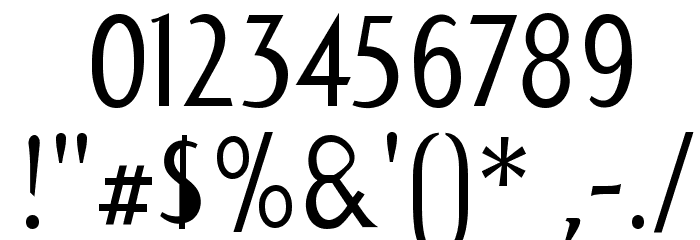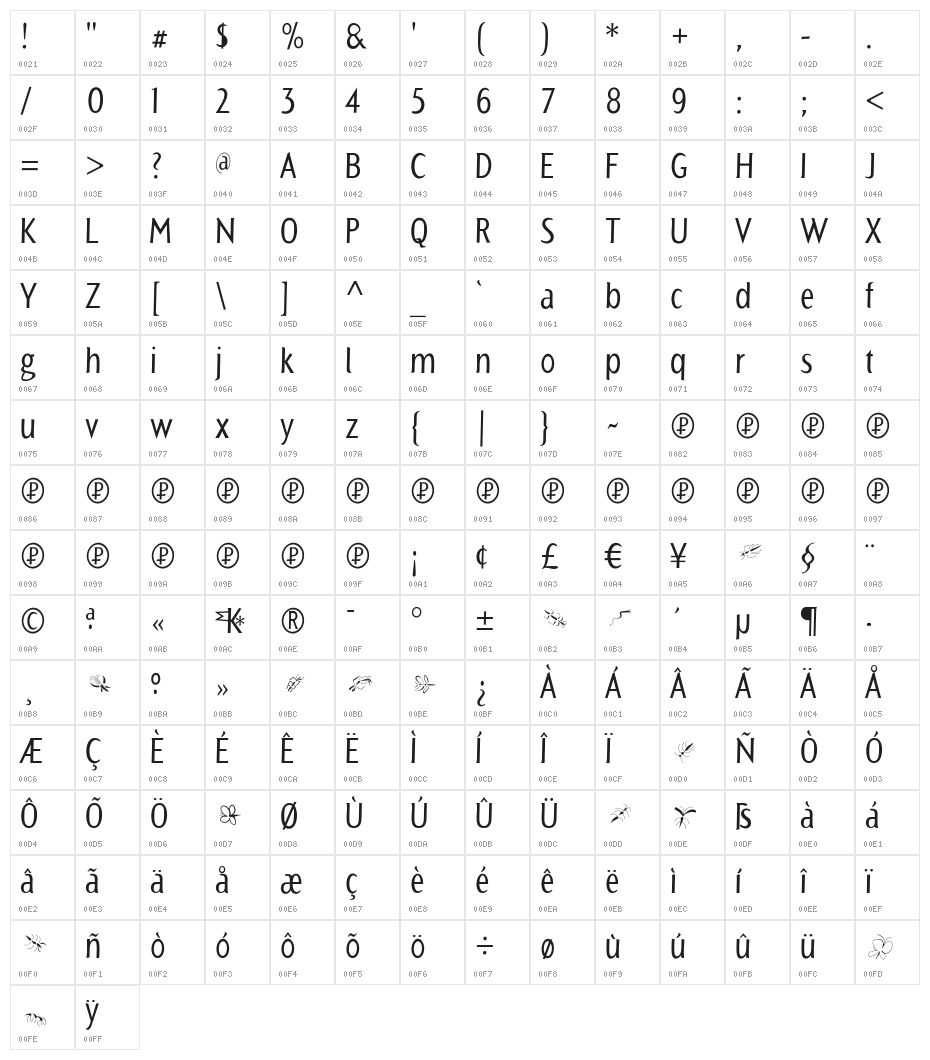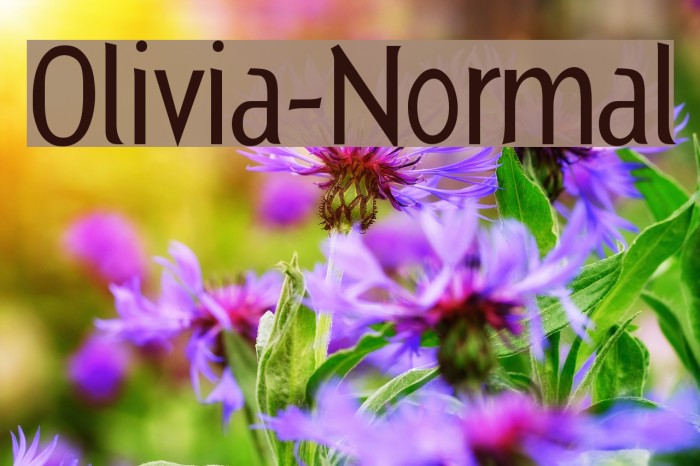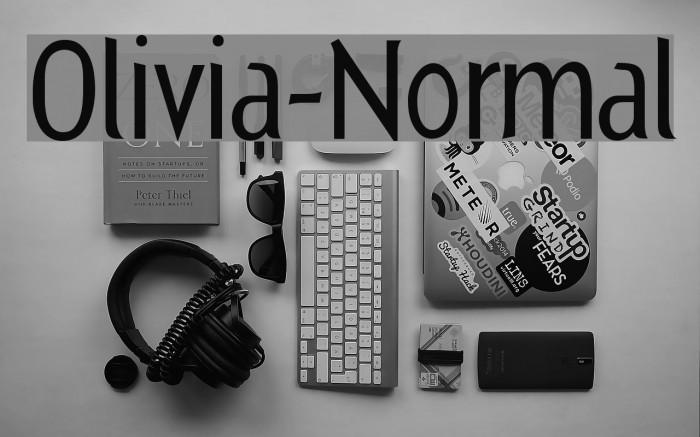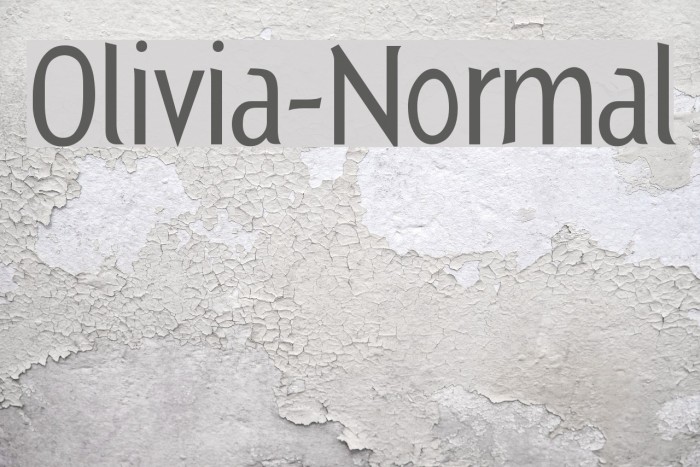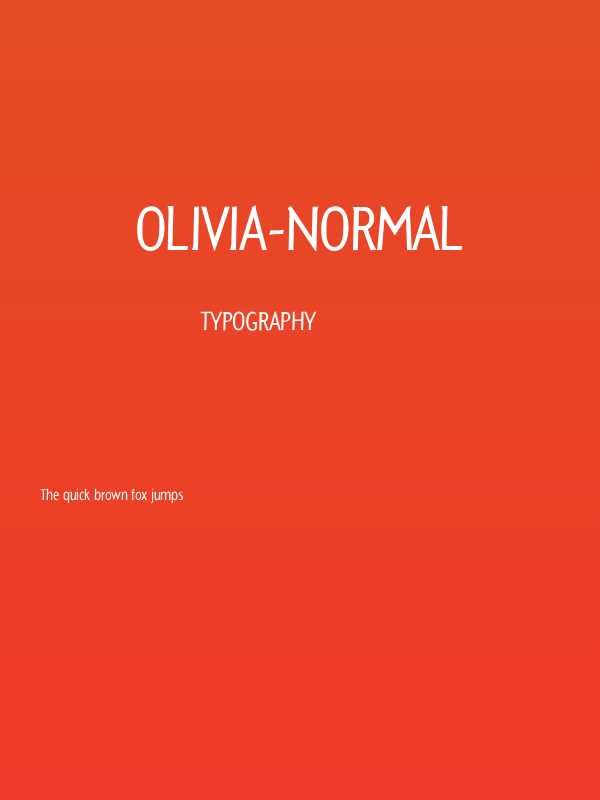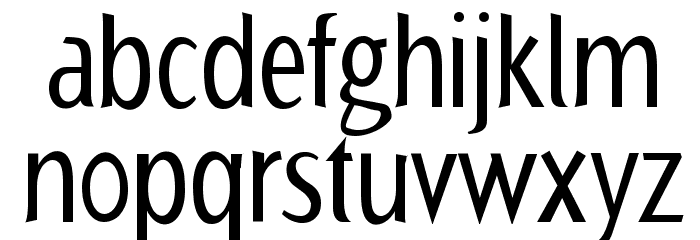
Olivia-Normal Font
Olivia-Normal Description
This font features a clean and modern sans-serif style with a balanced and harmonious appearance. The characters are well-proportioned, offering a smooth and consistent flow across both uppercase and lowercase letters. The numerals are clear and easily distinguishable, making them suitable for various applications. Special characters are included, maintaining the font's cohesive design. The overall look is professional and versatile, ideal for both digital and print media.
| Proposed Projects | Ideal for branding, editorial design, web design, and corporate materials. |